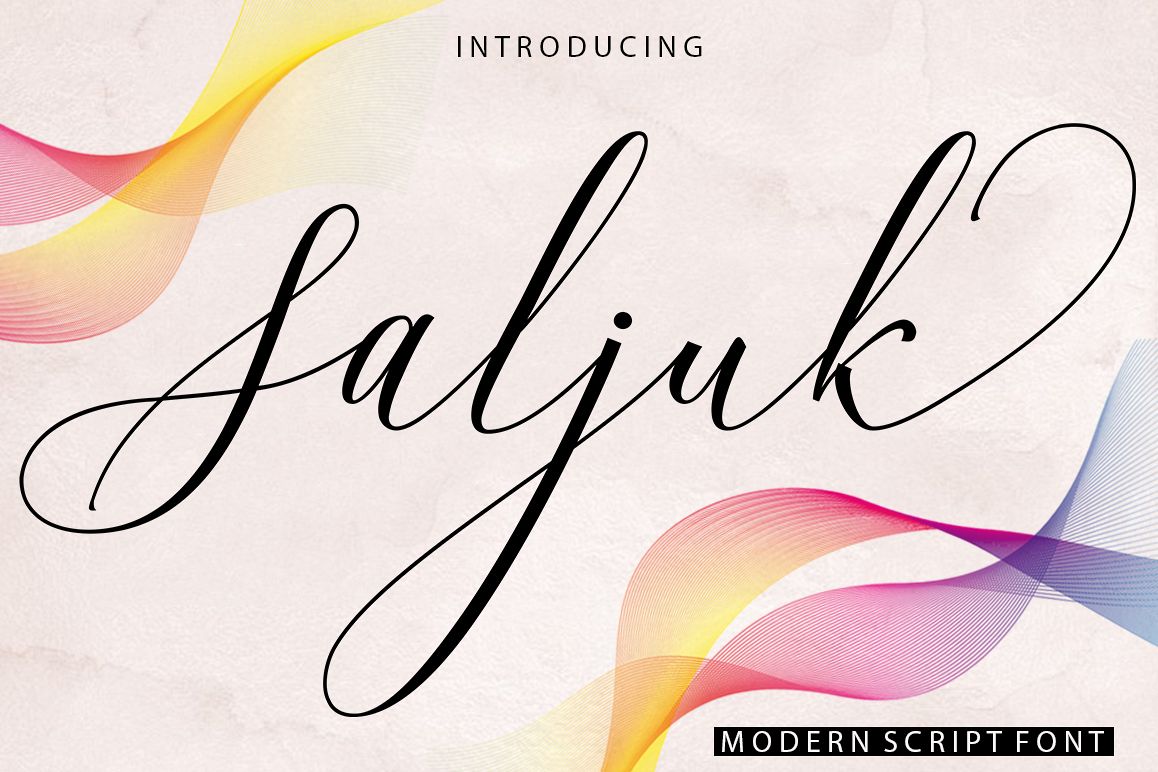
Saljuk
Saljuk-Regular
Saljuk Script is a handwritten font with varied base lines, designed to convey elegance and style. It's smooth, clean and feminine. Works perfectly for logos, magazines, menus, books, invitations, wedding / greeting cards, packaging, labels, t-shirts etc. All your designs will have an amazing homemade touch with Saljuk Script.